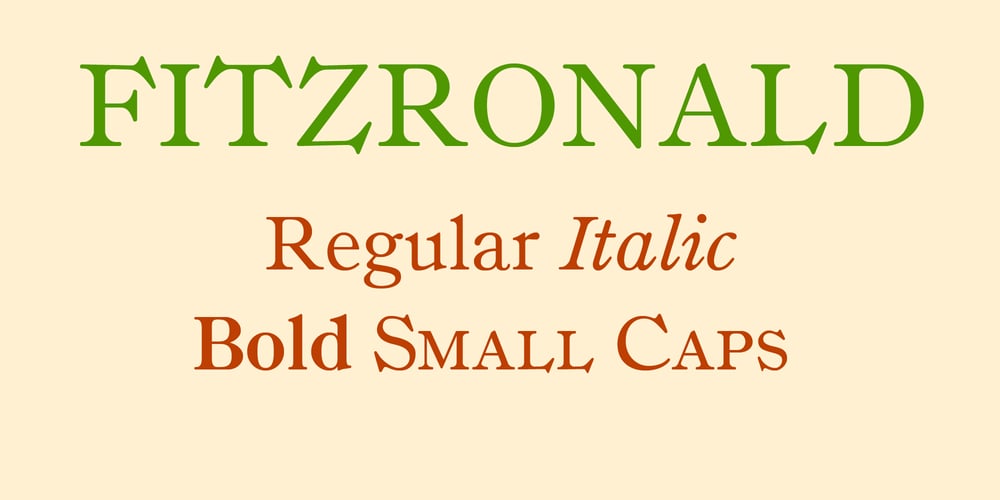
Fitzronald
Fitzronald font
Fitzronald Font Family was designed by Lars Törnqvist, Alexander Kay and published by Cercurius. Fitzronald contains 4 styles and family package options. Fitzronald is a body text typeface with a strong personality combined with a good legibility in small sizes. It is an excellent book typeface, but it can be used in e.g. advertising and packaging as well. Due to its good legibility at low resolution, it is a superb website and e-book typeface.Fitzronald is based on Ronaldson, an American typeface originally cut by MacKellar, Smiths & Jordan in 1884.